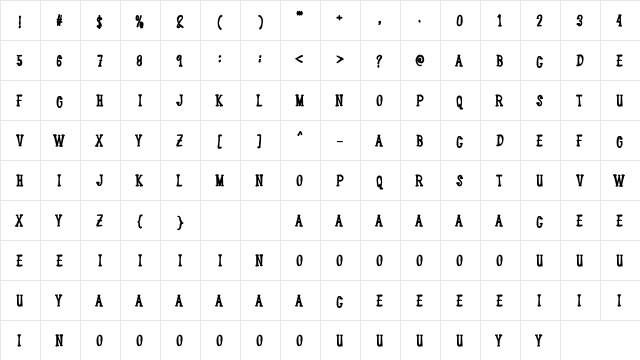
Close Friend Regular
Design Context for Close Friend Typeface
Close Friend takes a measured approach to typography — its balanced proportions and neutral character make it a reliable workhorse for both digital and print work.